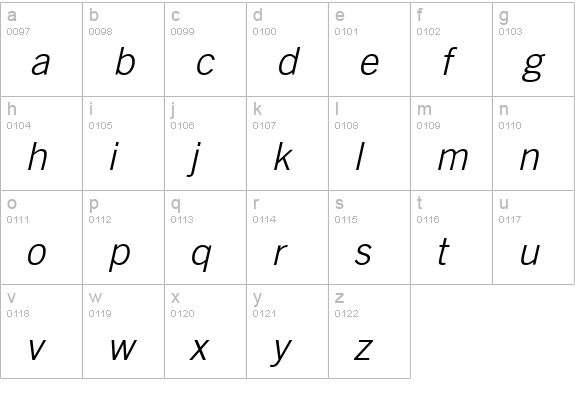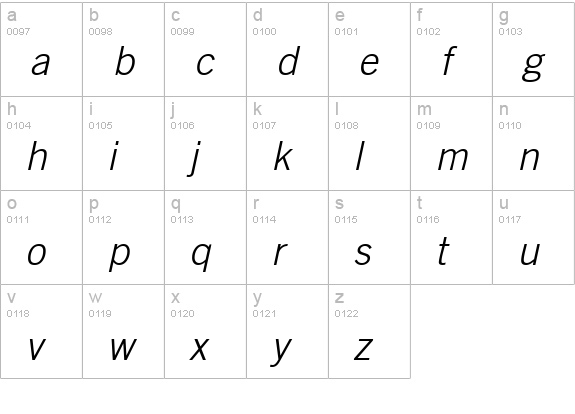
TransferGothic-Light-Italic Font Details
TransferGothic-Light-Italic is a refined, elegant, italic variant in the TransferGothic typeface family \xE2\x80\x94 well suited to elegant body text, refined sub-headings, and luxury branding.
TransferGothic-Light-Italic is a modern and stylish font that exudes sophistication and elegance. With its sleek lines and subtle curves, this font is perfect for adding a touch of class to any design project. The italicized style adds a touch of flair and creativity, making it ideal for headings, titles, and other eye-catching elements. What makes TransferGothic-Light-Italic even more appealing is that it is available for free download at FontsMarket.com. This means you can easily access and use this beautiful font in your projects without any cost. Whether you're designing a website, creating a poster, or working on a branding project, TransferGothic-Light-Italic is sure to elevate your design to the next level. Download it today and unleash your creativity with this stunning and versatile font.